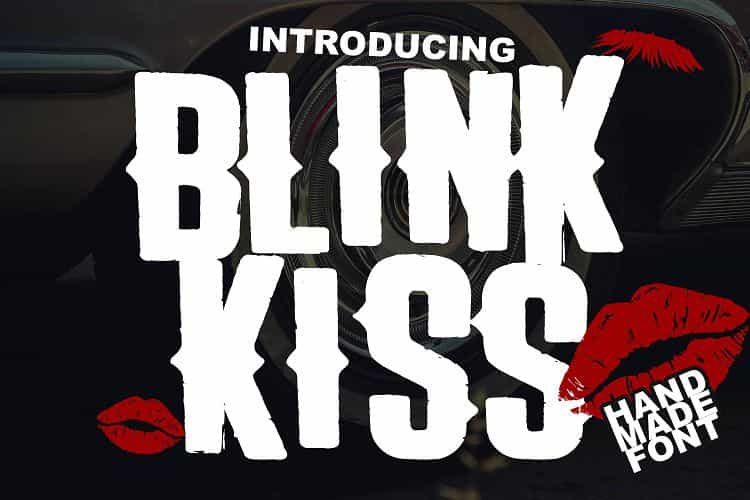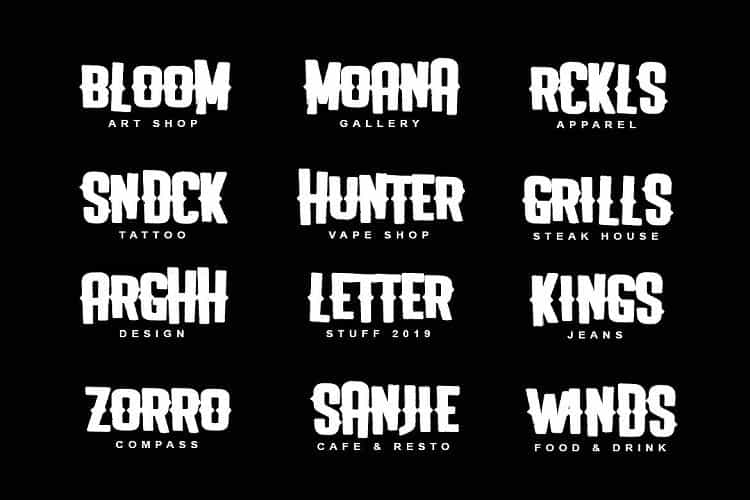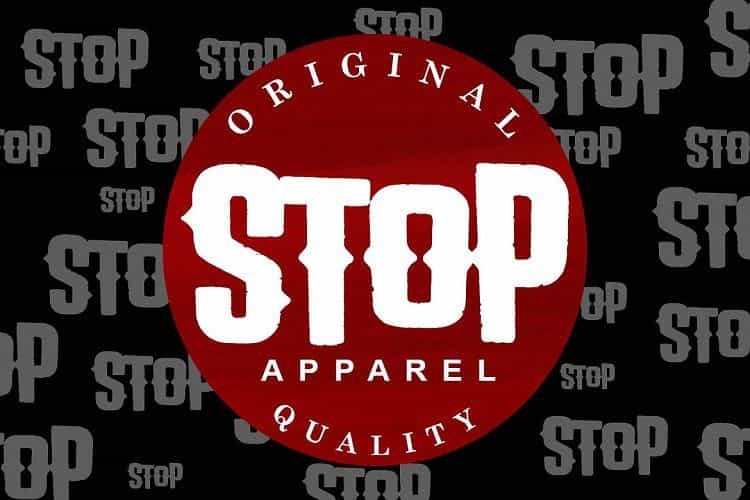
I am grateful that you have noticed the Blink Kiss Font!It is developed and uploaded by Lettersiro. Blink Kiss Font is a logotype font that stands out from the rest. This font is the best one for logo, quote, poster, playful lettering in clothes and any other design projects. Just play the uppercase and lowercase letter.